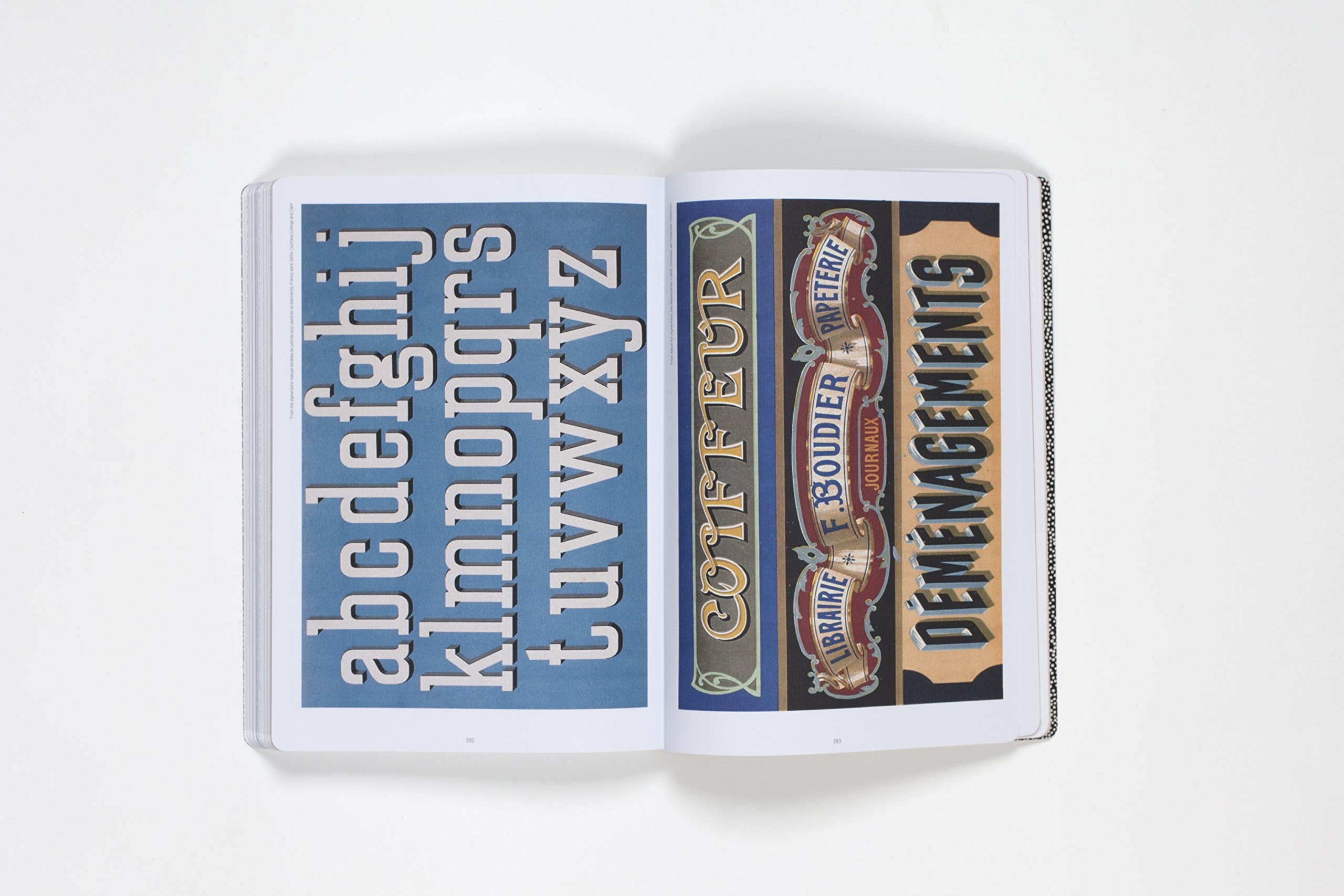
A2Z+ Alphabets & Signs
The original A2Z presented an astonishing array of alphabets, emblems, letters and signs with stunning graphics drawn from classic modernist publications and obscure professional manuals. It was a uniquely unconventional collection of fascinating visual material designed for practical and creative use. This spectacular updated version contains an abundance of newly discovered material with over 130 new images, featuring the spectacular statistical charts of W.E.B. Du Bois and a wealth of rare graphics and ephemera. Capricious and unpredictable, it is an art book of a completely different kind that will be an indispensable source of ideas and inspiration for artists, poets, designers and other professionals of the letter, word and sign.